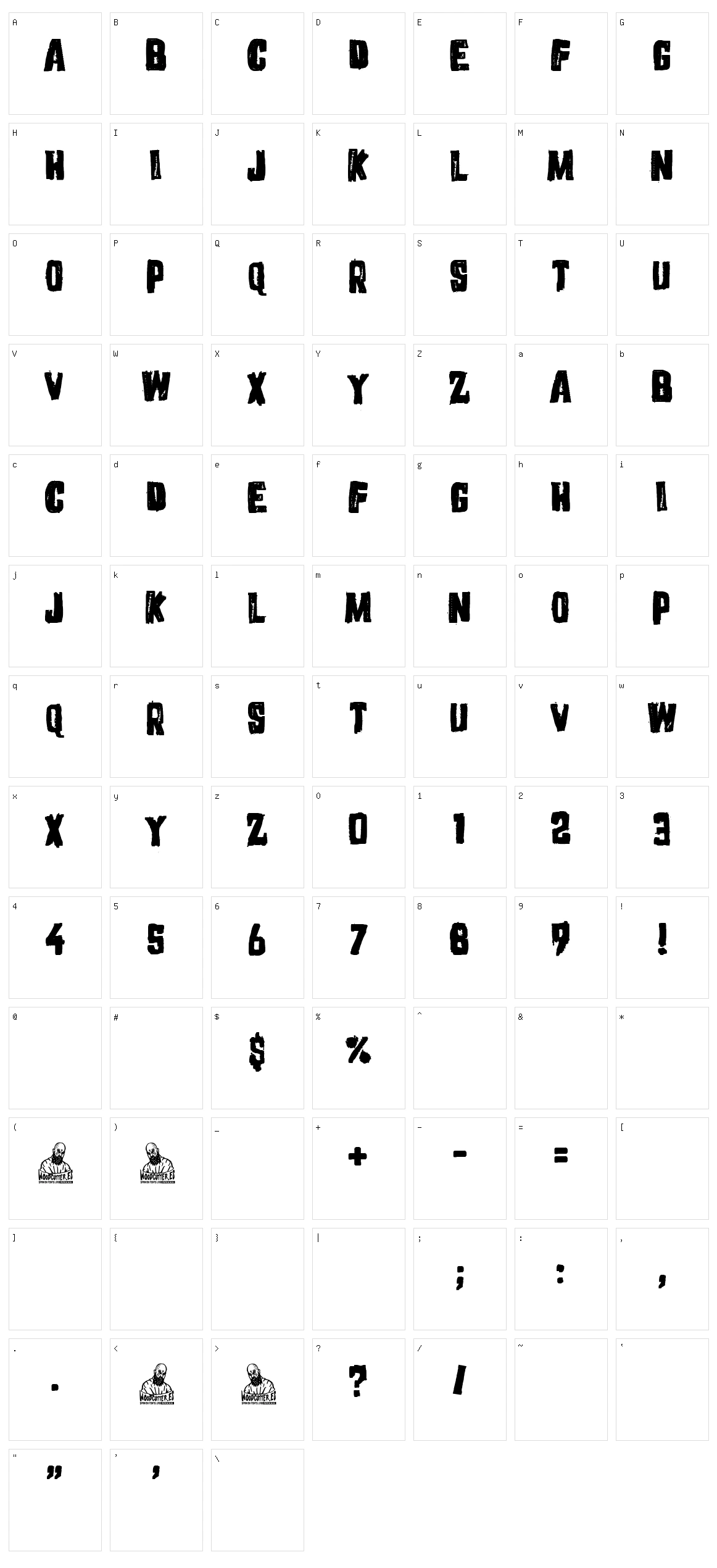
The free font The Serial Lover is carefully designed by Woodcutter, showcasing a thoughtful balance of creativity and usability and falls under the Destroy font style. When you download the ZIP file, it contains only 106 KB of font files, making it lightweight and quick to download. Please review the license details below to understand permitted usage and distribution rights. If license information is not available, we recommend using this font for personal projects only or contacting the author directly for commercial usage permissions.